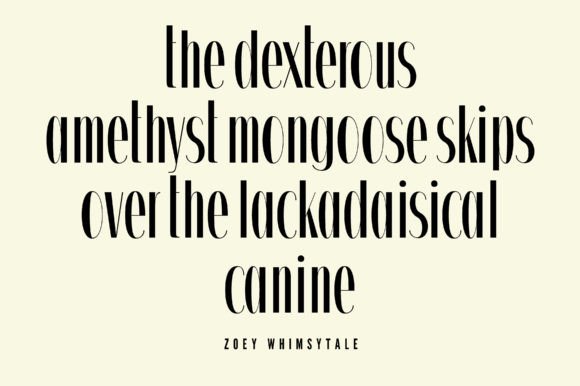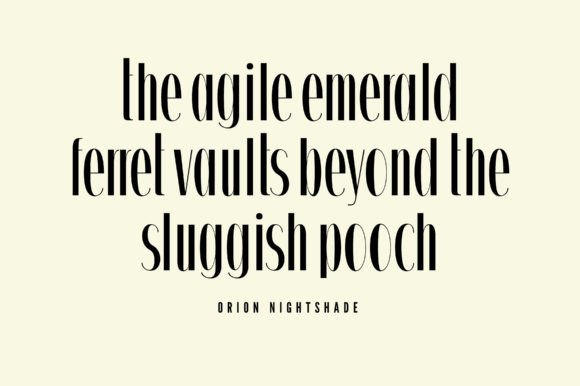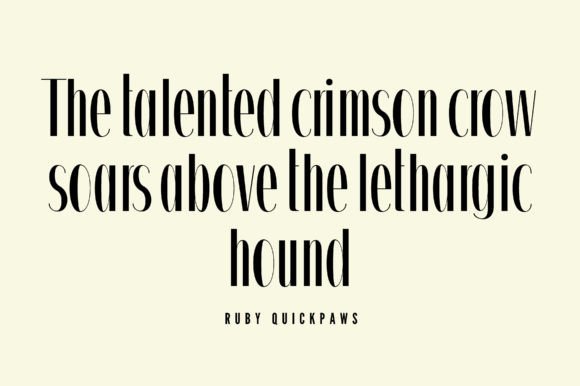
Introduction to Nardina Font
As you sit in front of your computer, staring at a blank canvas, you feel the pressure to create something truly unique. The cursor blinks impatiently, waiting for your next move. You’ve got a creative project on the horizon, and you’re in desperate need of a design resource that can elevate your vision to the next level.
That’s where the Nardina Font comes in – a game-changing sans serif typeface that’s about to revolutionize the way you approach your design projects. With its exquisite charm and meticulously crafted details, Nardina Font effortlessly strikes the perfect balance between minimalist sophistication and contemporary chic, making it the ideal choice for projects that demand a touch of refinement.
Key Features of Nardina Font
- Includes a range of glyphs and characters, making it a versatile font for various design applications.
- Designed with a modern and elegant aesthetic, making it perfect for creative projects requiring a high-end look.
Honest Review: Nardina Font
I recently stumbled upon the Nardina Font, and I must say it’s been a game-changer for my creative project. This font has a unique charm that sets it apart from the rest, making it a valuable design resource.
- High-quality typography that’s perfect for any design project
- Works well in both digital and print designs
The Nardina Font is an excellent choice for any designer looking to add a touch of elegance to their project. Its high-quality typography and transparent background make it a versatile font that can be used in a variety of creative ways.
- May not be suitable for projects requiring bold or dramatic typography
- Some users may find the font too elegant or refined
Overall, I’m thoroughly impressed with the Nardina Font, and I’d highly recommend it to any designer looking for a high-quality, free design resource.
How to Use Nardina Font
Tips for Getting the Most Out of Nardina Font
To get the most out of Nardina Font, use it in combination with other design elements, such as images and shapes. Experiment with different font sizes, colors, and styles to create unique and eye-catching designs.
Common Use Cases for Nardina Font
Nardina Font is ideal for creative projects, such as graphic design, branding, and digital art. Its high-quality design and transparent background make it a versatile design resource for designers and artists.